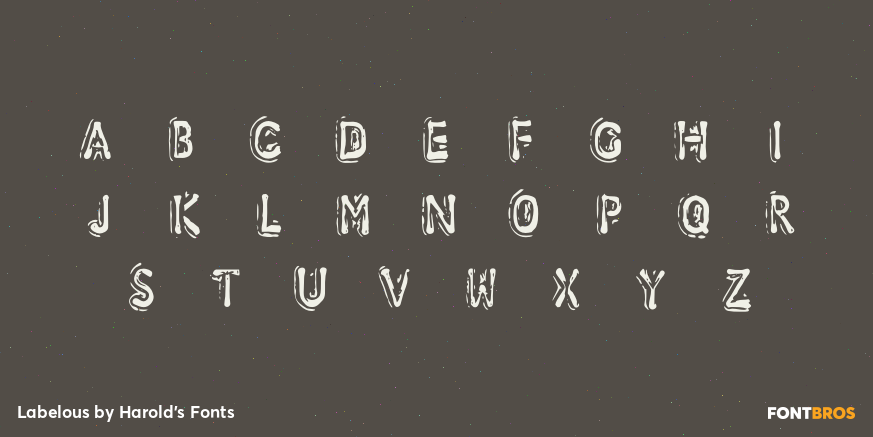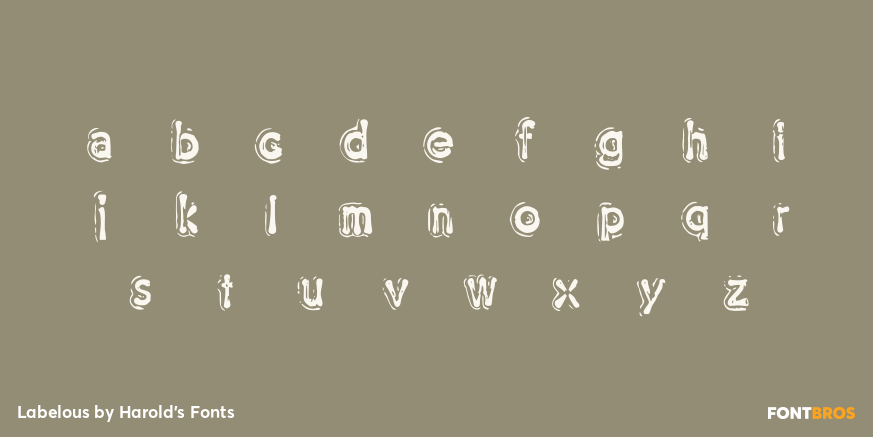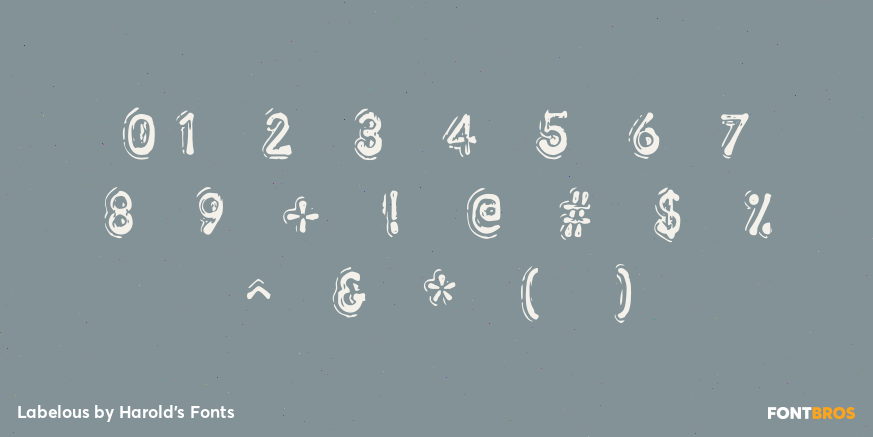
Labelous
Font Family by Harold's Fonts
LABELOUS looks like embossed tape labels, a low-tech classic. But unlike other such fonts, Labelous is narrower and includes upper and lowercase, full punctuation, and international characters. There are two versions of the font, one with black letters and the other with black tape and white letters. For the look of continuous tape, just type an underscore for blank tape between letters.